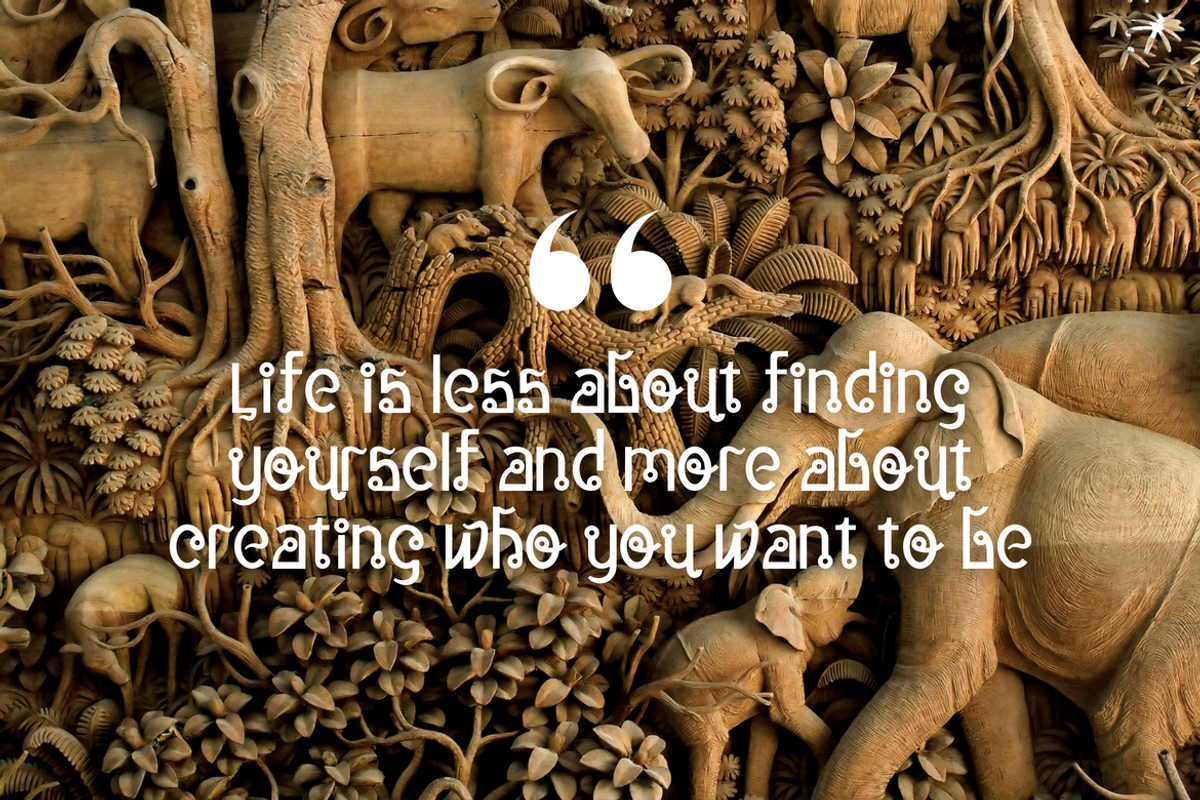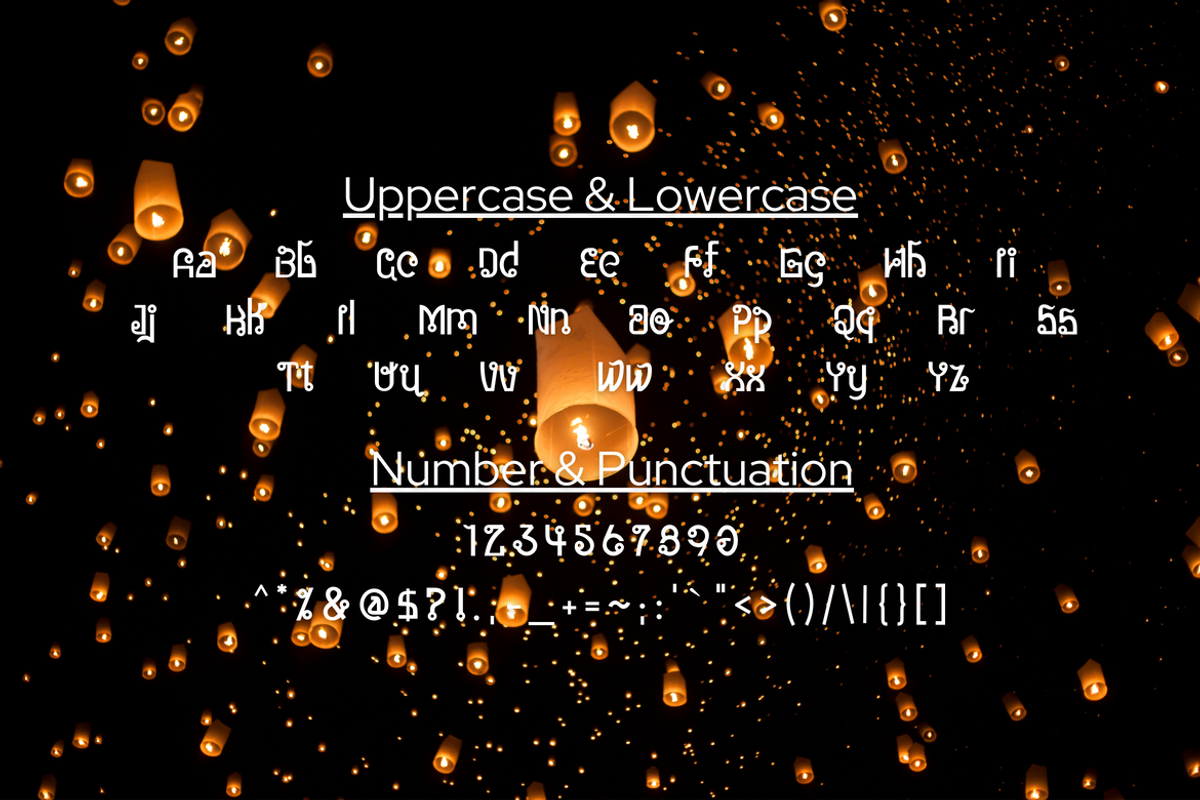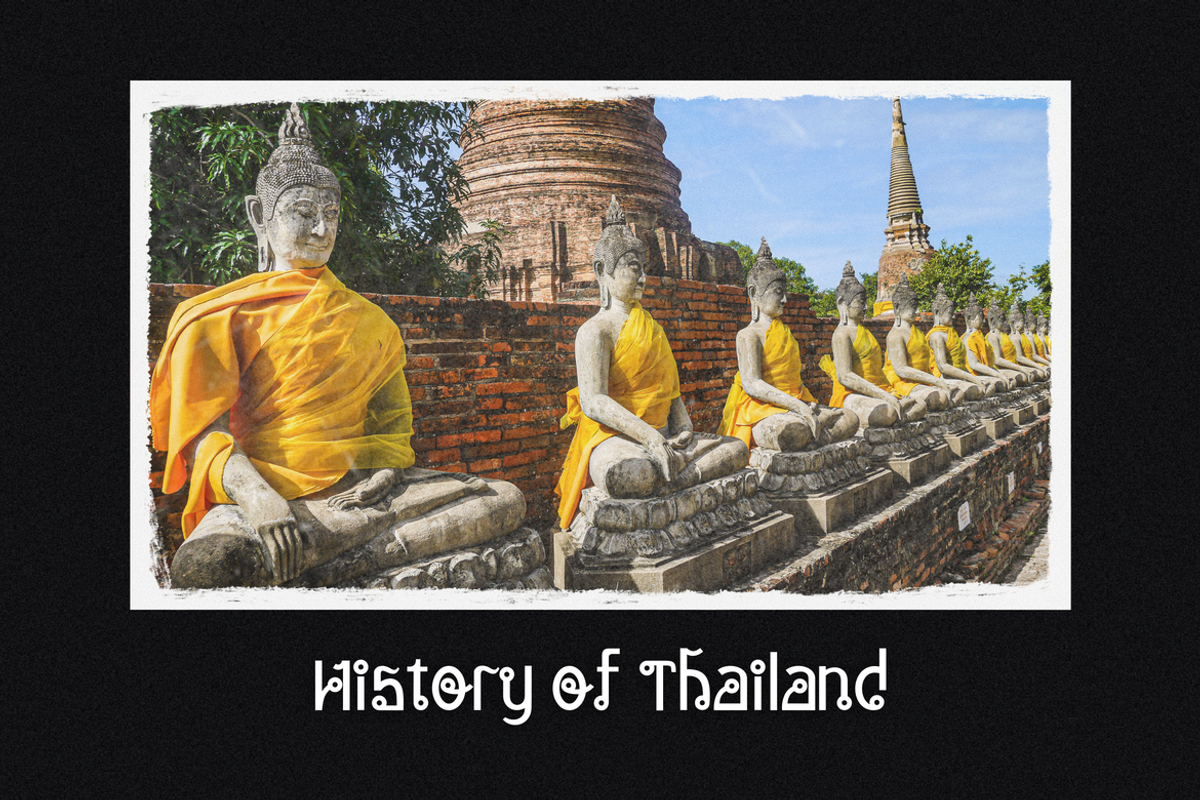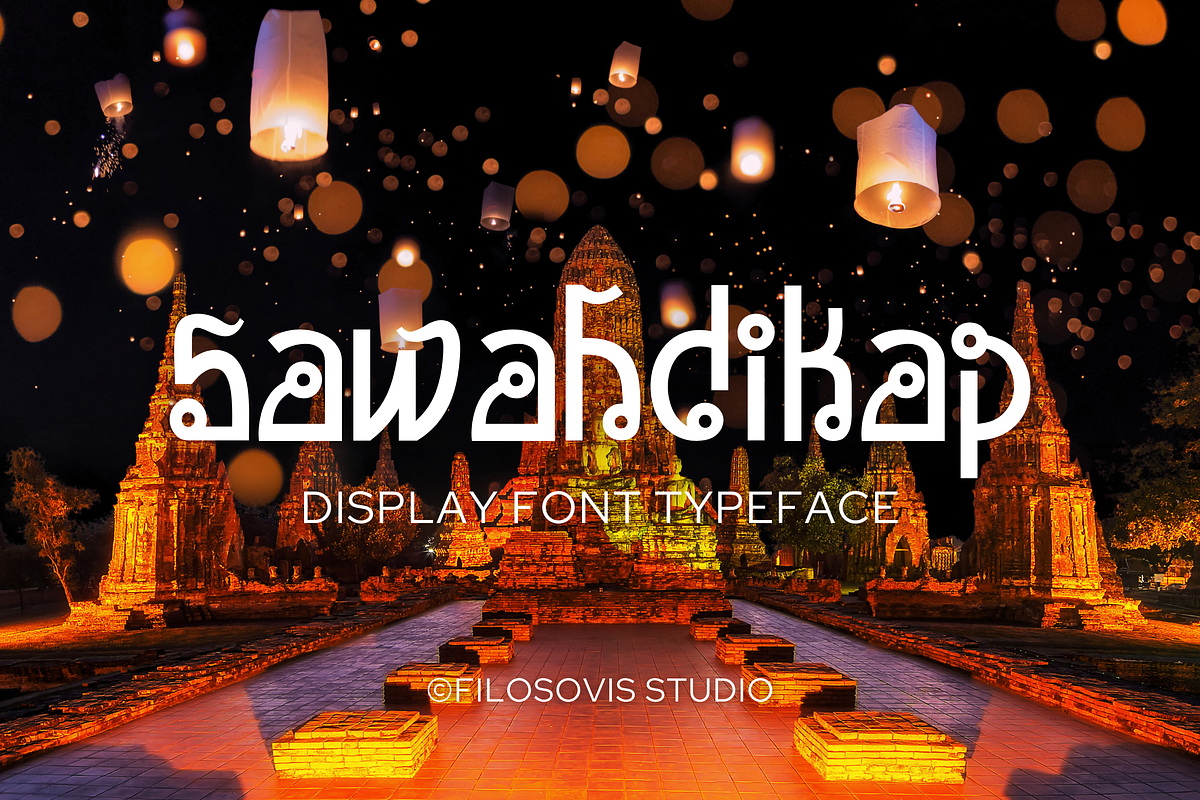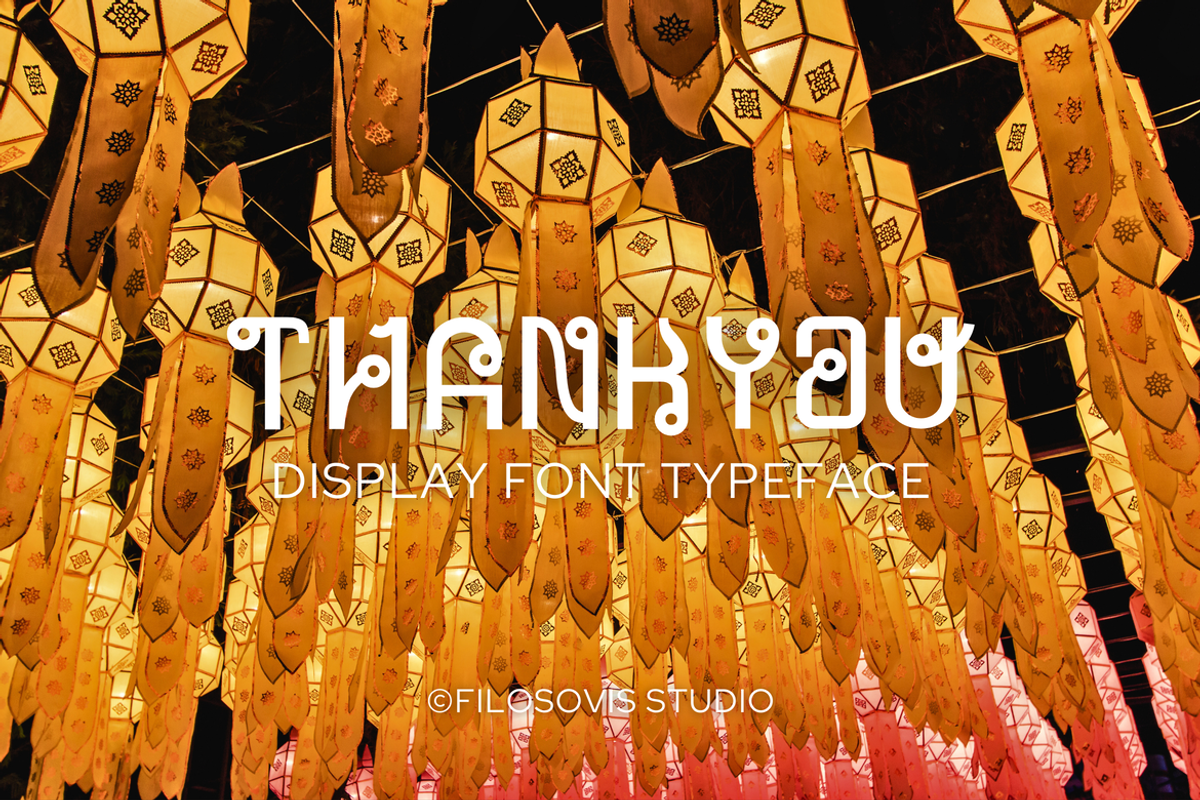
Sawahdikap | Display Font Typeface
Sawahdikap is a semi-modular, sans-serif typeface that may be used in a variety of media formats and was inspired by industrial signs.